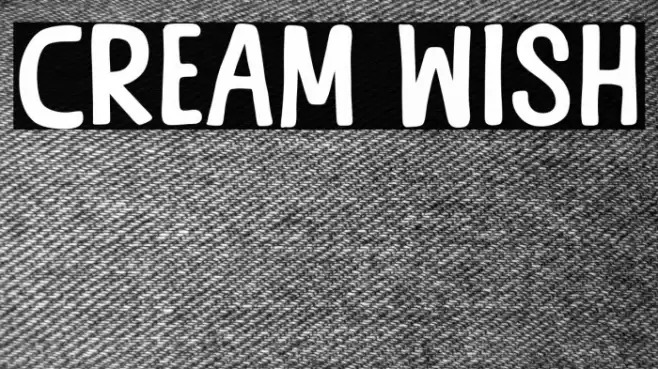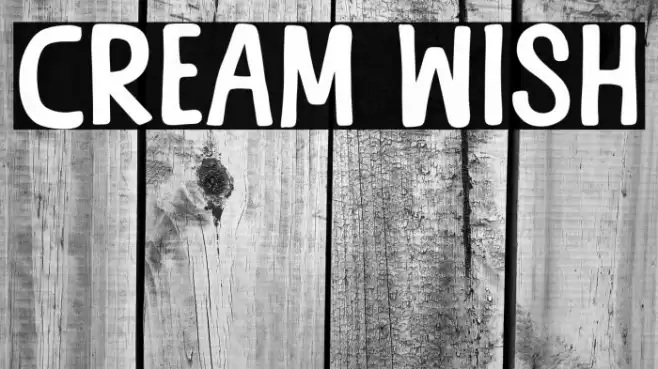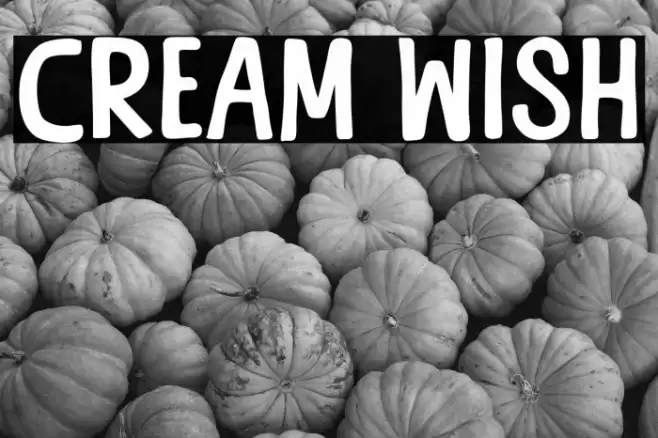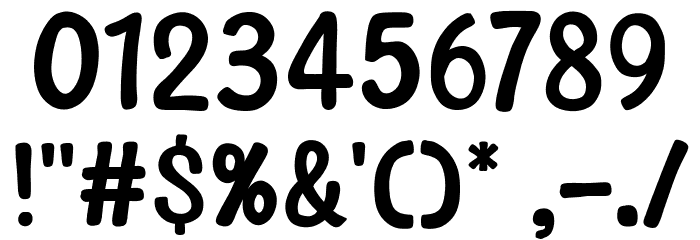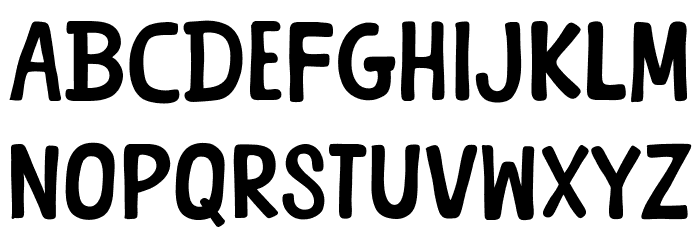
Cream Wish Font
Cream Wish Description
This playful and bold font features rounded edges and a hand-drawn aesthetic, giving it a friendly and approachable appearance. The characters are slightly irregular, adding to its charm and uniqueness. The uppercase and lowercase letters maintain a consistent style, with a slight tilt that enhances its casual feel. The numbers and special characters are equally whimsical, making this font suitable for creative and informal projects. Its bold strokes ensure readability while maintaining a fun and lively vibe.
A playful, bold font with rounded edges and a hand-drawn look from Kids fonts.
- Font: Cream Wish
- Proposed Projects: Ideal for children's book covers, playful branding, greeting cards, and casual posters.
- Overall Style: Casual and Fun